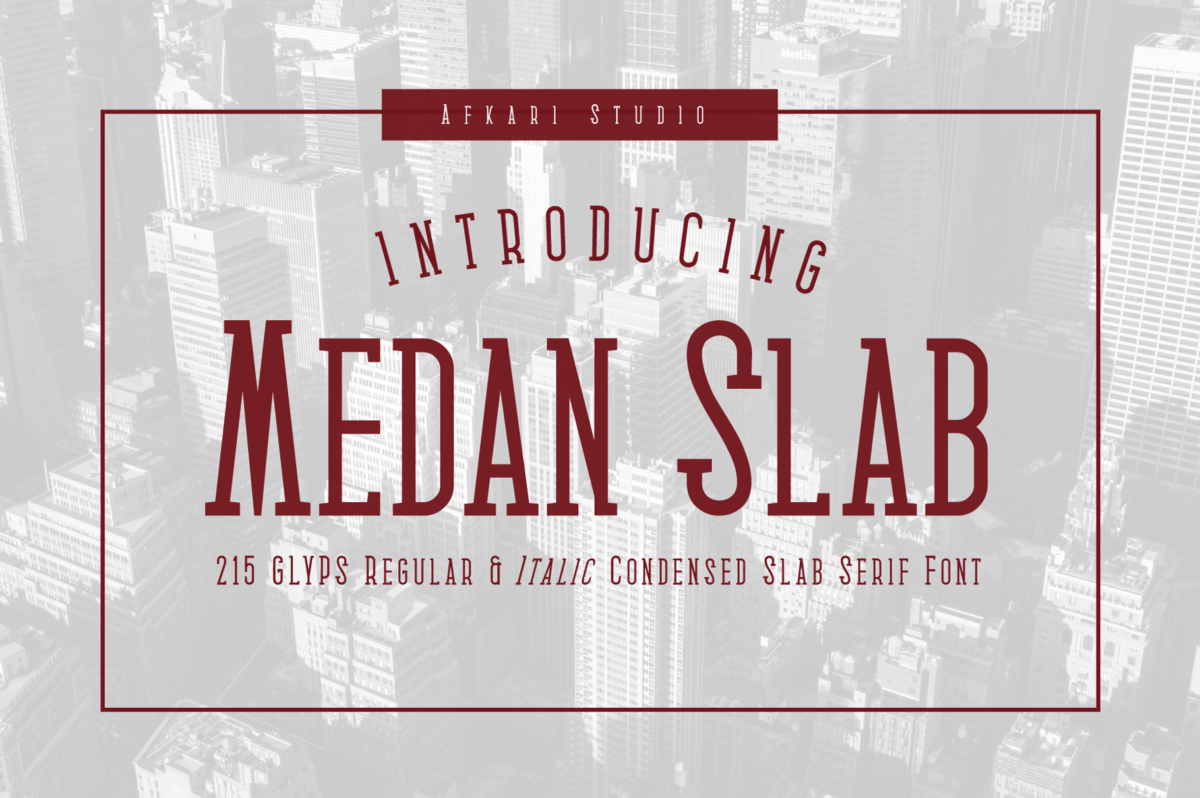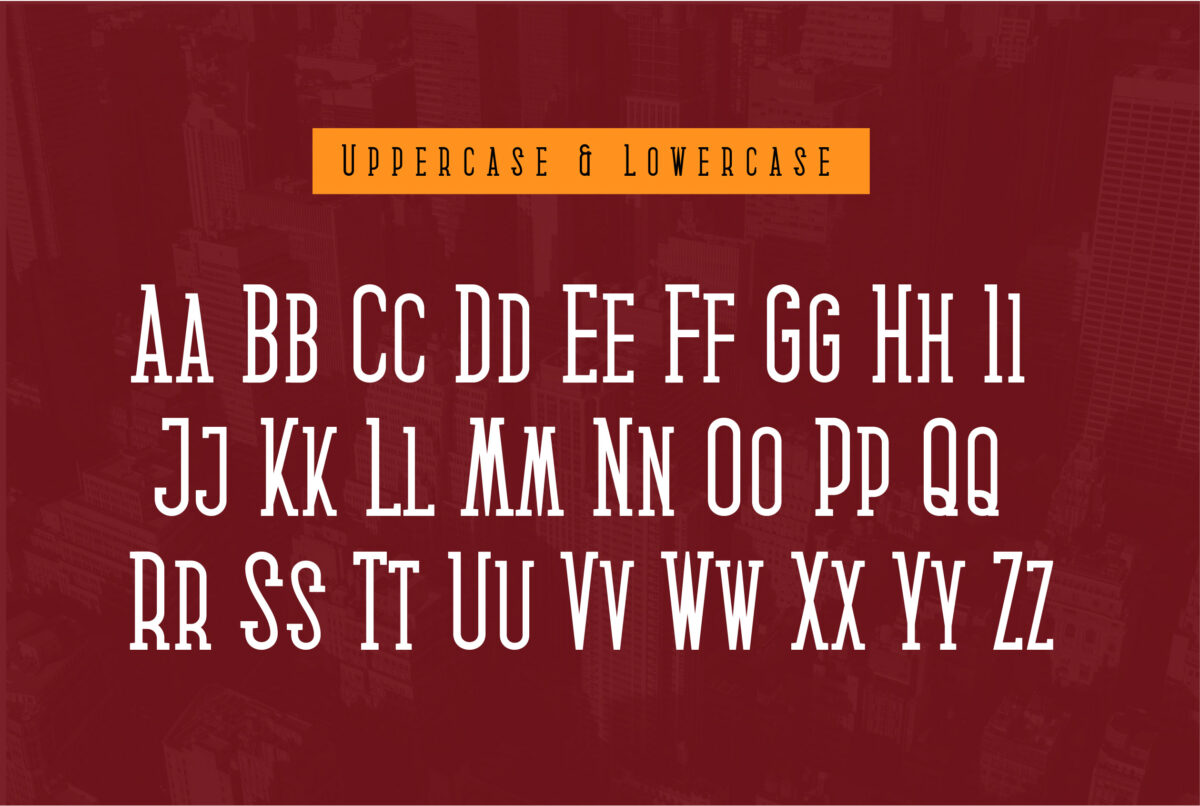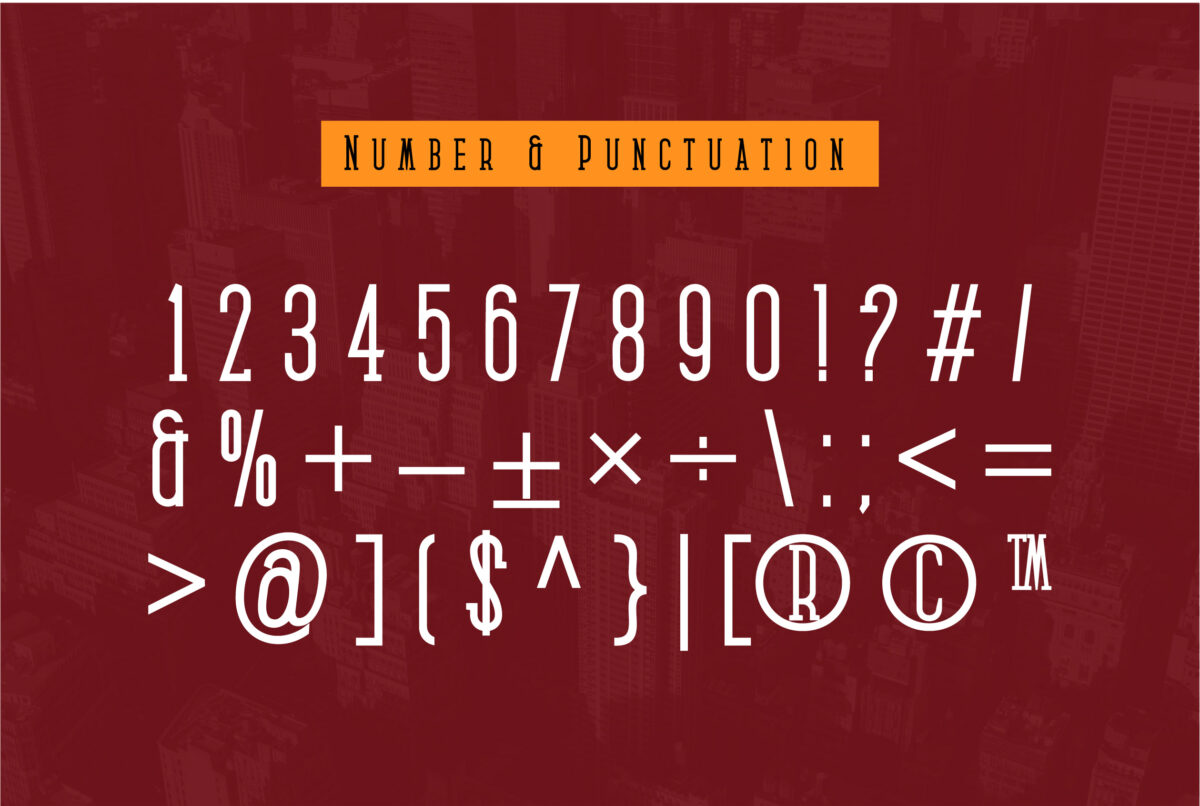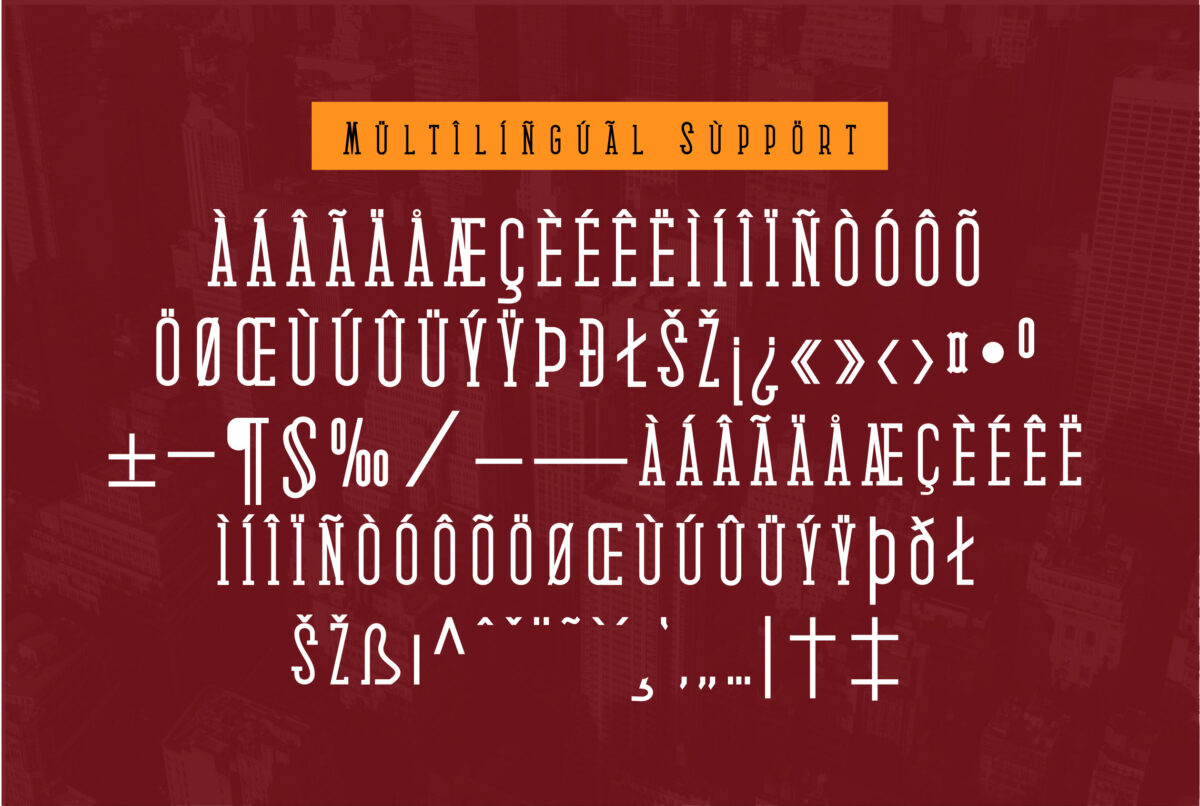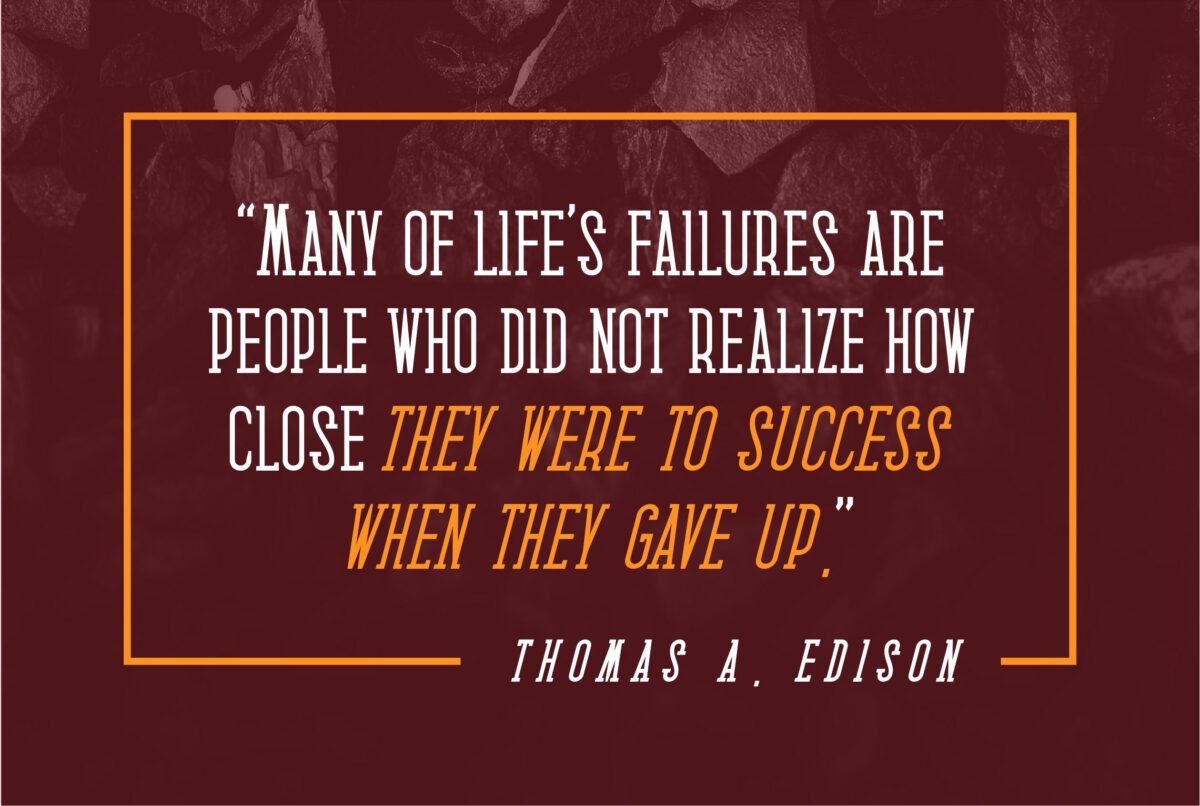
Medan Slab Condensed Slab Serif Font
Medan Slab is Condensed Slab Serif Font an Elegant Condensed Slab serif with solid font files. Suitable for branding, name card, stationary, design title, blog header, Logo, greeting cards, quotes, posters, art quote, typography.
Medan Slab Condensed Slab Serif Font also suitable for your any projects.
Features :
– Upper Case & Lowercase (All Caps)
– Numerals & Punctuations (OpenType Standard)
– Accents (Multilingual characters)